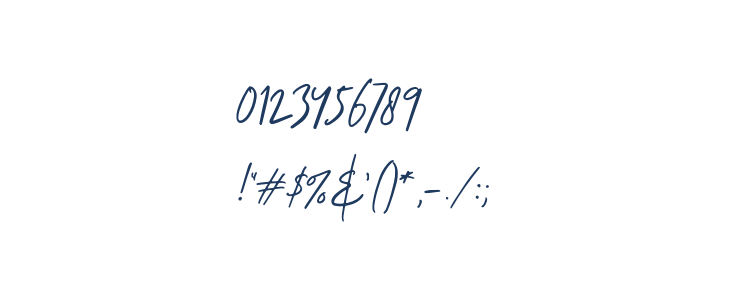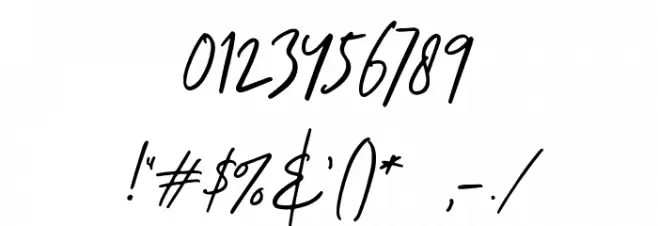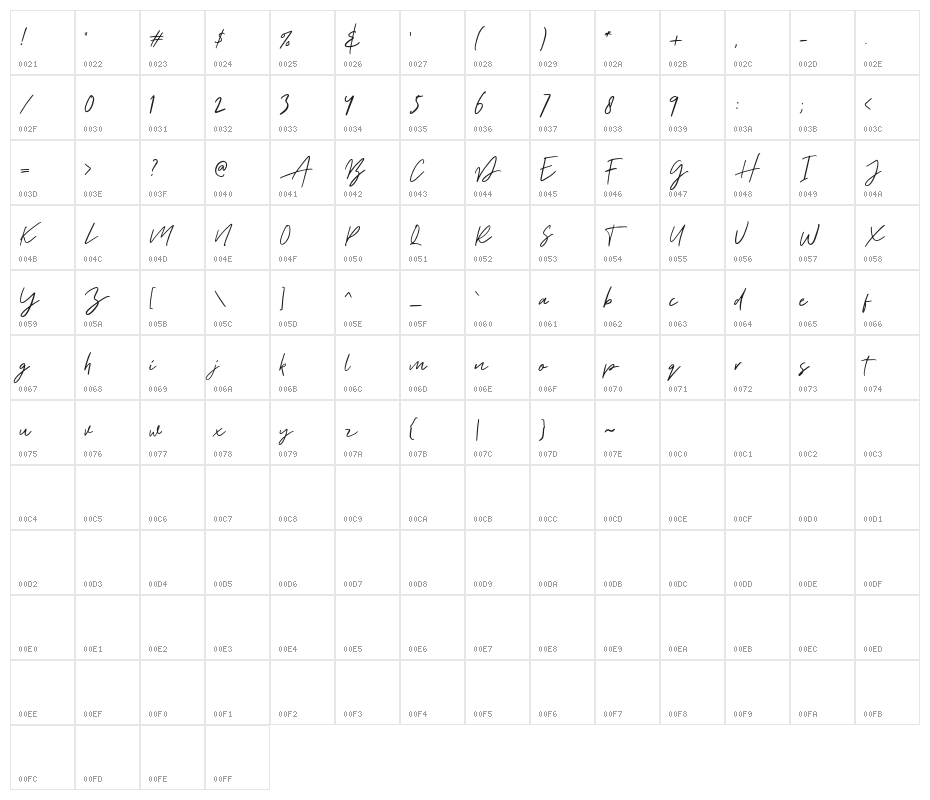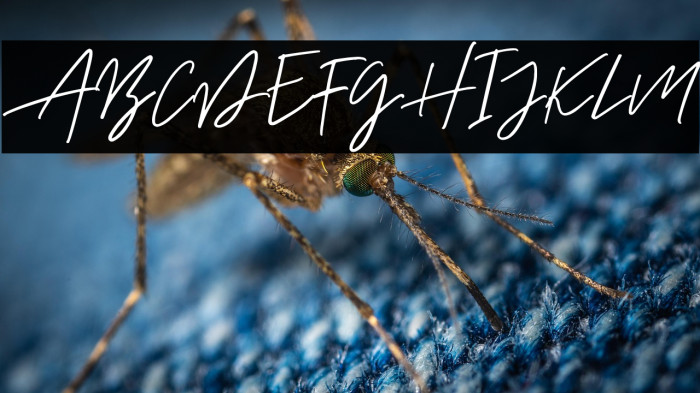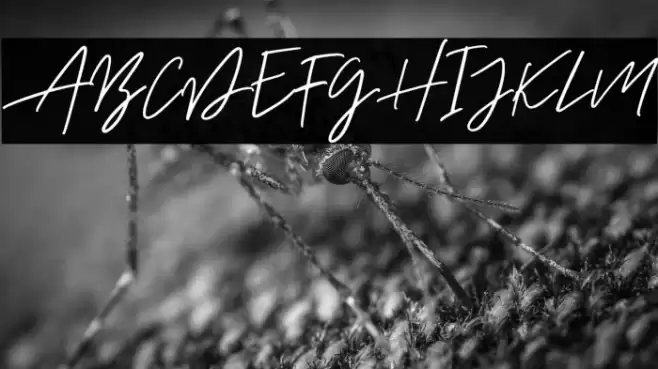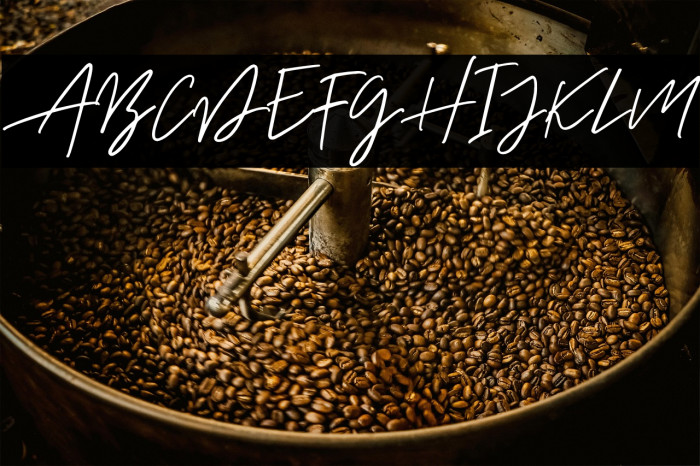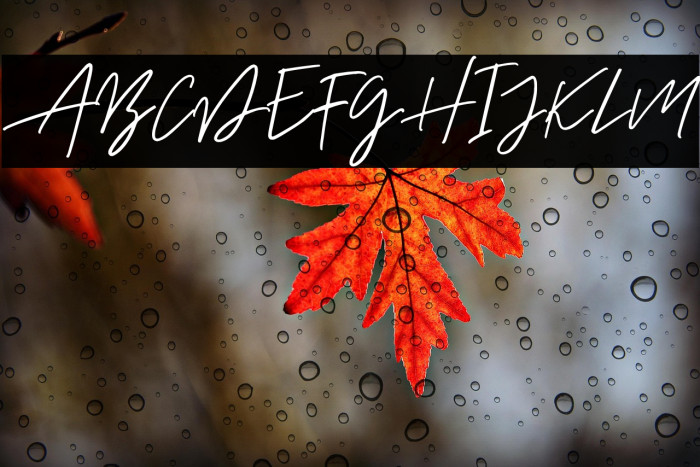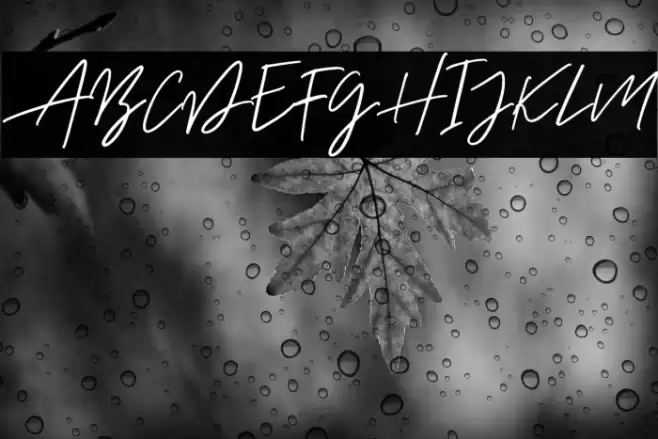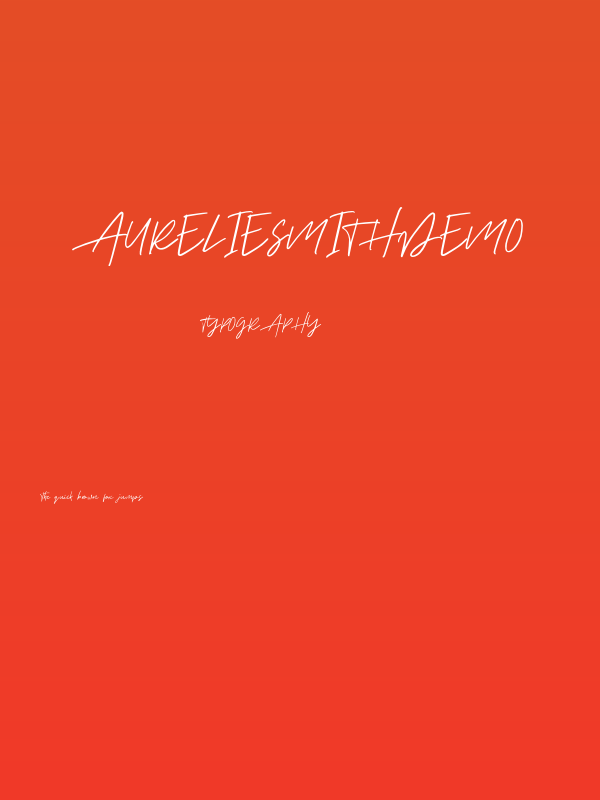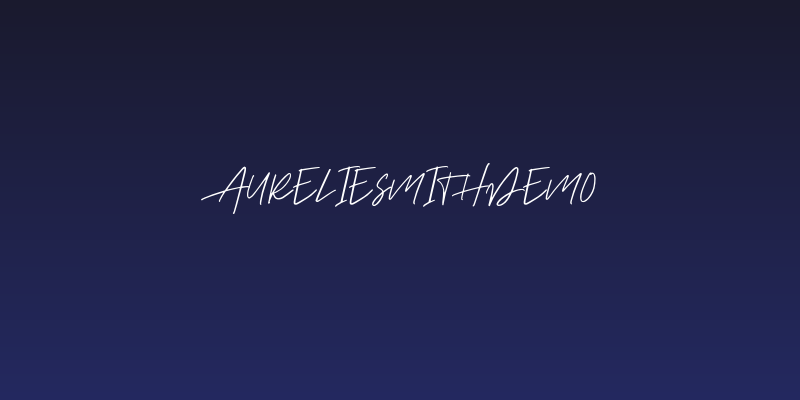
AurelieSmithDEMO Font
AurelieSmithDEMO Description
This font exhibits a dynamic and fluid handwritten style, characterized by its elegant and flowing strokes. The letters are connected in a cursive manner, giving it a personal and informal touch. The uppercase letters are bold and slightly slanted, while the lowercase letters maintain a consistent flow with a slight variation in height and width. The numbers and special characters follow the same fluid style, ensuring a cohesive look across all characters. This font is perfect for projects that require a personal, artistic touch, such as invitations, greeting cards, or branding materials.
| Use Case | Logos, Headlines, Artistic projects |
| Proposed Projects | Ideal for invitations, greeting cards, branding materials, and artistic projects. |